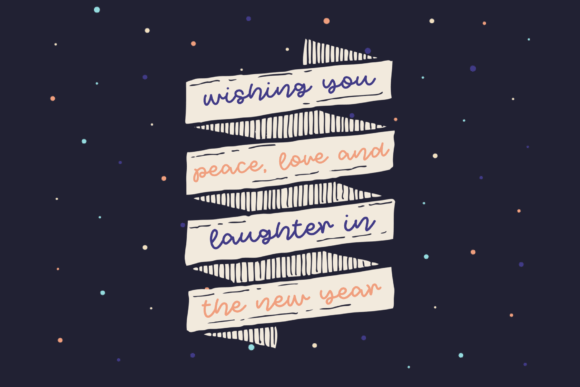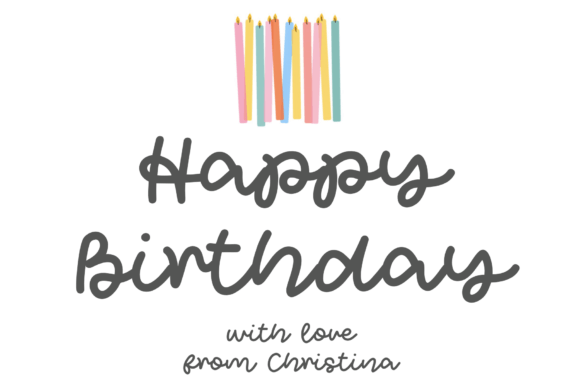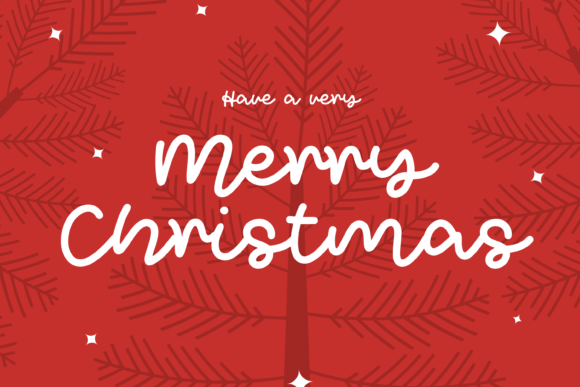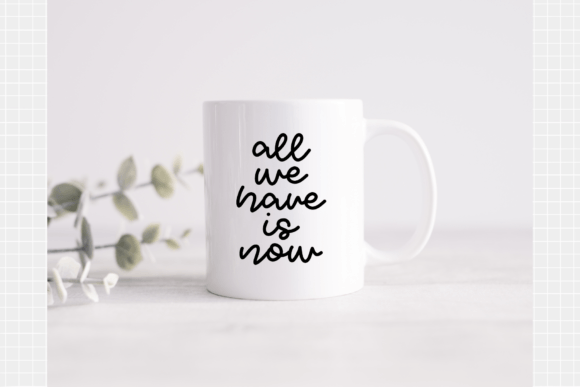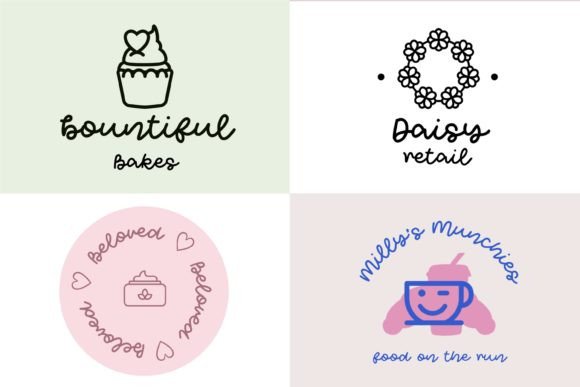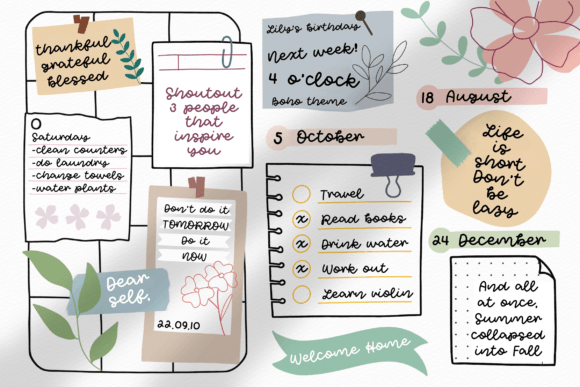
Joy and Wonder Font
About Joy and Wonder Font
Joy and Wonder is a cute monoline handwritten font. You can use this font in various projects and designs – logos, branding, ads, invitations, greeting cards, decorations, and much more.